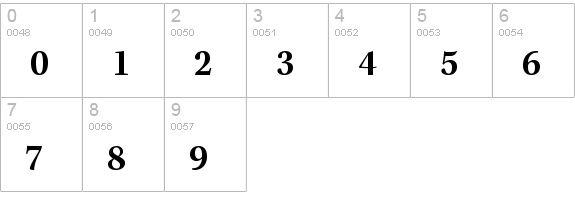
Kepler Std Semibold Semicondensed Caption Font Details
Kepler Std Semibold Semicondensed Caption is a sub-bold, structured variant in the Kepler typeface family \xE2\x80\x94 well suited to sub-headlines and emphasised passages.
Kepler Std Semibold Semicondensed Caption font is a stylish and versatile typeface that effortlessly combines elegance with readability. With its semi-bold weight and condensed proportions, this font is perfect for adding emphasis and impact to your design projects. Whether you're creating eye-catching headlines, informative captions, or sleek logos, Kepler Std Semibold Semicondensed Caption font is sure to make a lasting impression. Its clean lines and balanced letterforms give it a modern yet timeless appeal, making it suitable for a wide range of applications. One of the best features of this font is that it is freely available to download at FontsMarket.com. This means that you can access and use this high-quality typeface without any limitations or restrictions. Whether you're a professional designer or a casual user, you can enjoy the benefits of Kepler Std Semibold Semicondensed Caption font without any cost. The versatility of this font extends to its language support, making it suitable for multilingual projects. It includes a wide range of characters, symbols, and punctuation marks, allowing you to express your creativity in various languages and writing systems. The legibility of Kepler Std Semibold Semicondensed Caption font is outstanding, even at smaller sizes. Its well-designed letterforms ensure that each character is easily distinguishable, ensuring that your message is conveyed clearly and effectively. With its combination of style, versatility, and free availability, Kepler Std Semibold Semicondensed Caption font is a must-have for any designer or anyone looking to add a touch of sophistication to their projects. Download it now from FontsMarket.com, and unlock a world of creative possibilities.